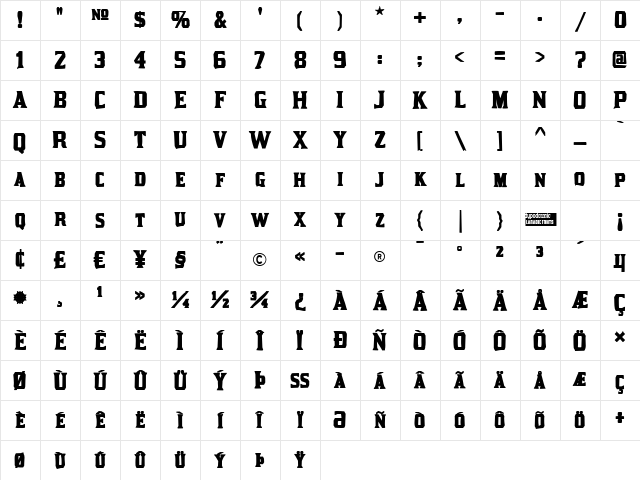
Kirsty Ink Regular
Design Context for Kirsty Ink
Kirsty Ink is a composed and adaptable typeface that performs quietly and consistently across a wide range of design contexts.